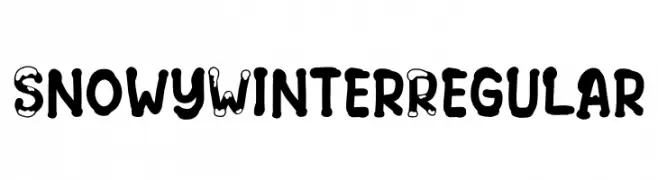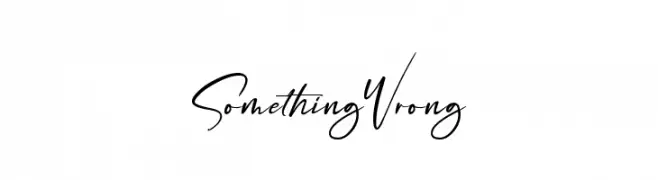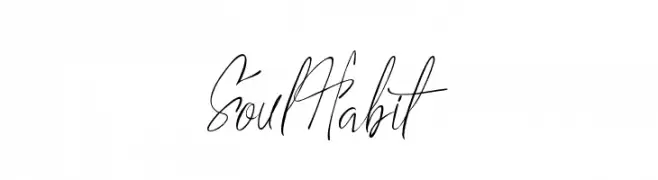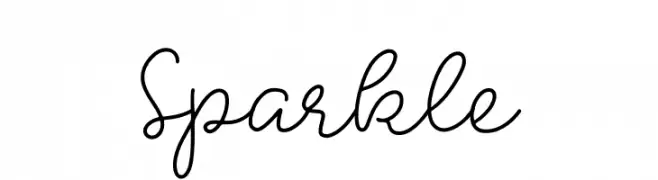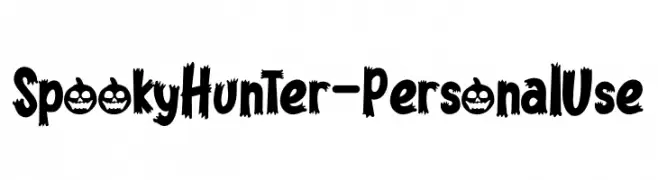
A bold, Gothic-inspired font with sharp, angular edges.
A playful, snowy-themed decorative font with bold, rounded characters.
An elegant, flowing script font with connected letterforms and a sophisticated style.
A flowing, elegant script font with dynamic curves and varying line thickness.
A dynamic, flowing script font with elegant, interconnected strokes.
A playful handwritten font with fluid, artistic letterforms.
A playful and elegant script font with smooth, flowing lines and a handwritten charm.
A playful, spooky font with jagged edges and bold, irregular styling.
An elegant script font with decorative swirls and flowing lines.
A bold and expressive script font with fluid, cursive strokes and dynamic flow.